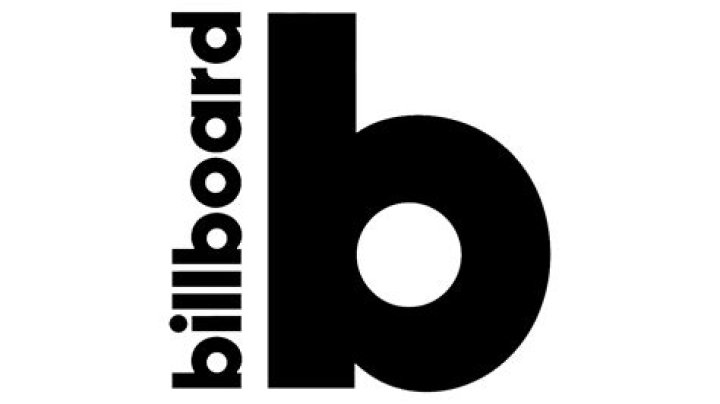
What font is the Billboard magazine logo?
Andrew Henderson What font is the Billboard magazine logo?
What font does Billboard use? The closest font you can get for the Billboard logo is Drescher Grotesk BT Semi Bold font. Free alternative fonts for Billboard logo: The closest free font you can get is Fundamental Brigade Font.
Who designed the Billboard logo?
Michael Bierut
Pentagram partner Michael Bierut has redesigned music industry trade magazine Billboard, creating a new identity, a new editorial format, and new-look chart-rankings pages.
What kind of font does a billboard use?
What font does Billboard use? The closest font you can get for the Billboard logo is Drescher Grotesk BT Semi Bold font. The closest free font you can get is Fundamental Brigade Font.